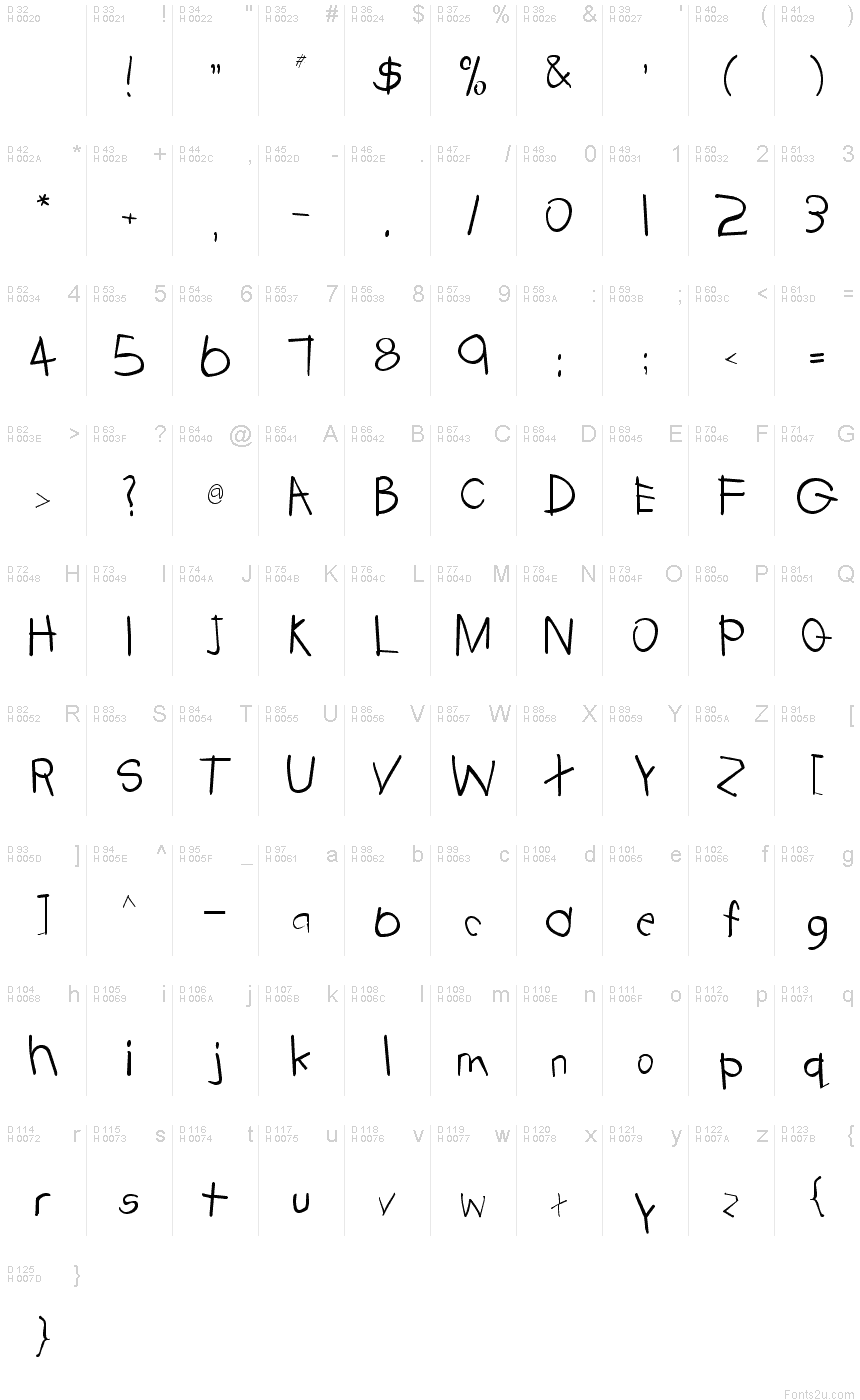
Tabatha Normal
Tabatha by Graphniques Software and Phil Schilling, is a free handwritten font with a loose marker-drawn feel and an easy, personal rhythm. The letters mix tall, airy strokes with broad rounded loops, so it feels casual and a little sketchbook-like rather than polished or formal.
It suits poster headlines, cafe menus, scrapbook titles, greeting cards, and playful packaging where a free font can keep the tone warm and informal. Because the strokes feel quickly written and slightly uneven, it also works well for short cover lines, label text, and name treatments that need a human note without turning overly cute.